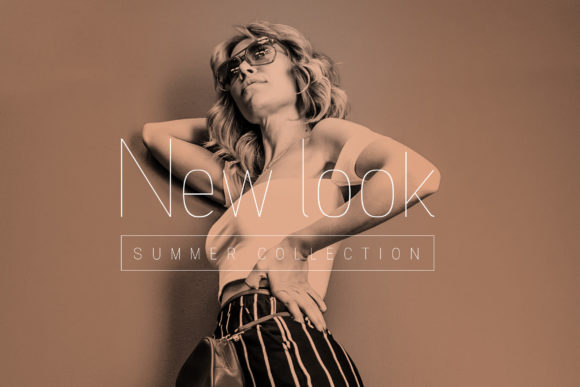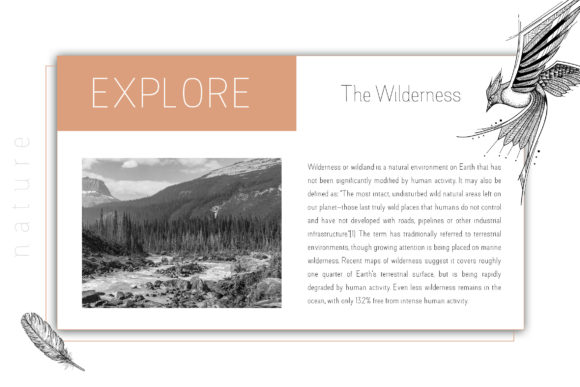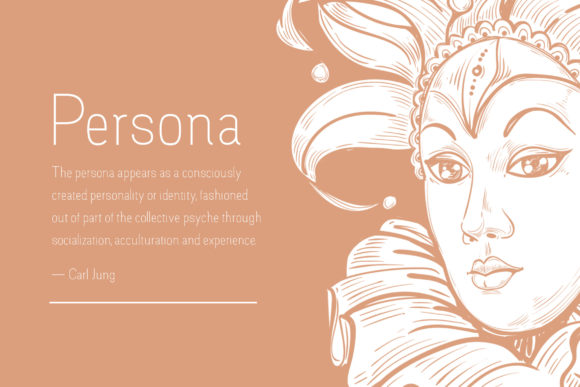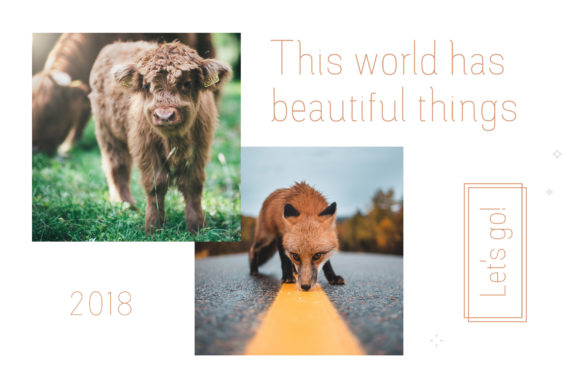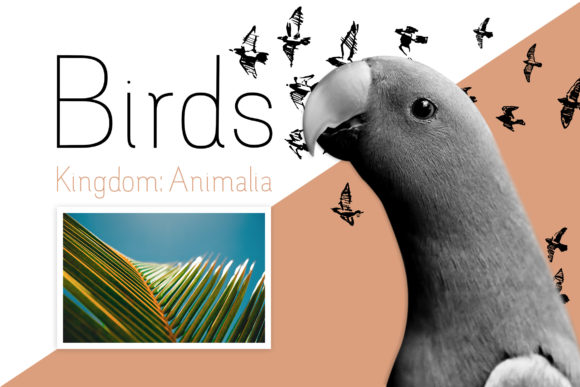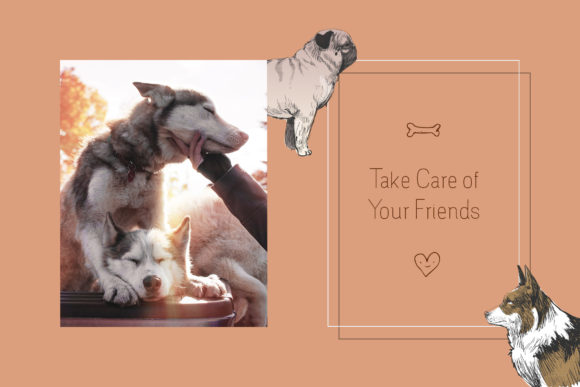
Camilie Family Font: Elevate Your Design with a Touch of Elegance
In the world of typography, a font can make or break a design. It’s the unsung hero that brings a visual identity to life, conveying emotions and tone in a way that’s both subtle and powerful. For designers and crafters looking to add a dash of sophistication to their work, the Camilie Family Font is an excellent choice. This 5-weight sans serif family is designed to bring a simple, yet modern and elegant feel to any project.
The Camilie Family: A Versatile Sans Serif Font
The Camilie Family Font is a versatile typeface that boasts five distinct weights, ranging from thin to bold. This range of weights allows designers to use the font in a variety of contexts, from body text to headings, and still maintain visual cohesion. The thin letters in the Camilie font are particularly noteworthy, as they add a touch of elegance and refinement to any design.
Key Features of the Camilie Family Font
- 5 weights: The Camilie Family Font comes in five different weights, allowing designers to choose the perfect level of boldness for their project.
- Sans serif: The clean lines and minimalist aesthetic of the sans serif design make the Camilie font perfect for modern and contemporary designs.
- Thin letters: The thin letters in the Camilie font are ideal for adding a touch of elegance and sophistication to a design.
- Simple and modern feel: The Camilie font is designed to bring a simple, yet modern feel to any project, making it perfect for designers looking to create a clean and contemporary visual identity.
Using the Camilie Family Font in Your Design
The Camilie Family Font is an incredibly versatile typeface that can be used in a wide range of design contexts. Here are a few ideas to get you started:
- Branding and logos: The elegant and refined aesthetic of the Camilie font makes it perfect for use in branding and logos.
- Web design: The clean lines and simple aesthetic of the Camilie font make it well-suited for use in web design, particularly for body text and headings.
- Print design: The Camilie font is also ideal for use in print design, including brochures, flyers, and business cards.
- Crafting and DIY projects: The Camilie font can add a touch of elegance and sophistication to crafting and DIY projects, such as handmade cards and invitations.
Tips for Getting the Most Out of the Camilie Family Font
To get the most out of the Camilie Family Font, here are a few tips to keep in mind:
- Experiment with different weights: Don’t be afraid to experiment with different weights of the Camilie font to find the perfect level of boldness for your design.
- Pair with other fonts: The Camilie font pairs well with a wide range of other fonts, so don’t be afraid to get creative and try out different combinations.
- Use for both headings and body text: The Camilie font is well-suited for use in both headings and body text, making it a great choice for designers looking to create a cohesive visual identity.
The Camilie Family Font is a versatile and elegant typeface that’s perfect for designers and crafters looking to add a touch of sophistication to their work. With its 5 weights, sans serif design, and thin letters, the Camilie font is well-suited for use in a wide range of design contexts. Whether you’re working on a branding project, web design, or crafting and DIY project, the Camilie Family Font is an excellent choice.